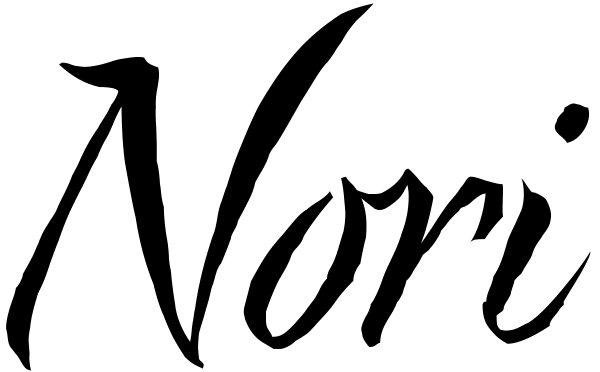
Nori
First, the important information…Nori is a hand-lettered typeface that contains over 1100 glyphs, 250 ligatures, 487 alternate characters, 125+ swash and titling alternates, lining and old style numerals. To make sure it is perfectly clear—Nori is...